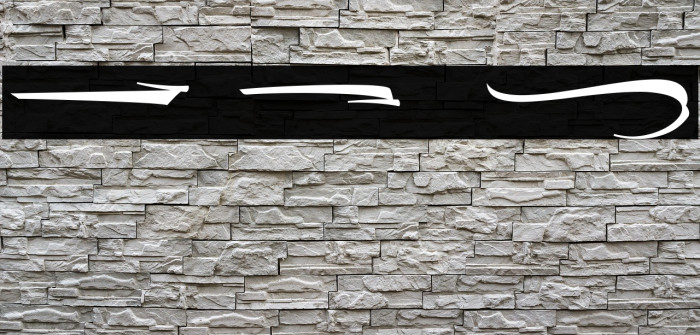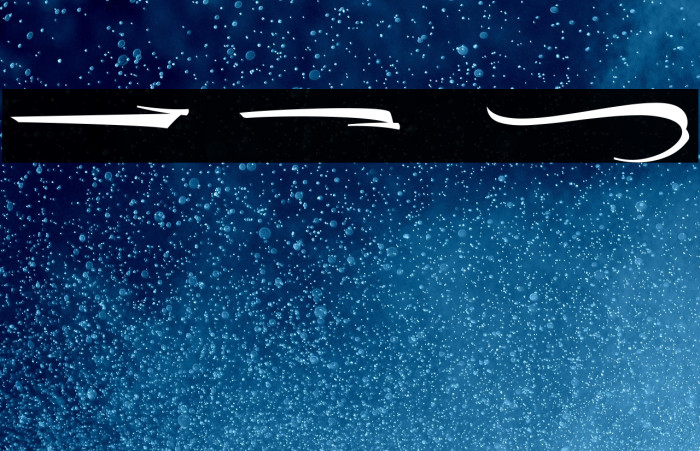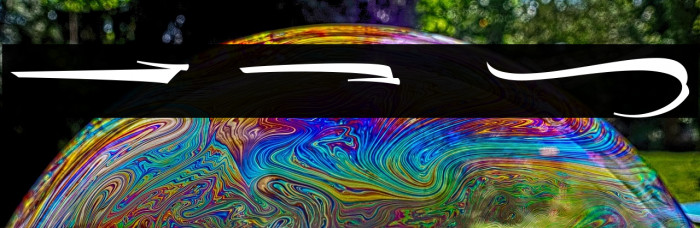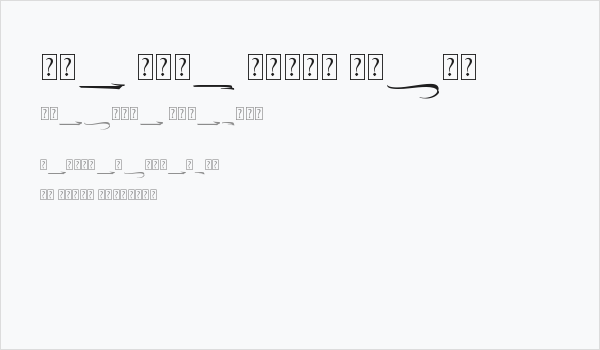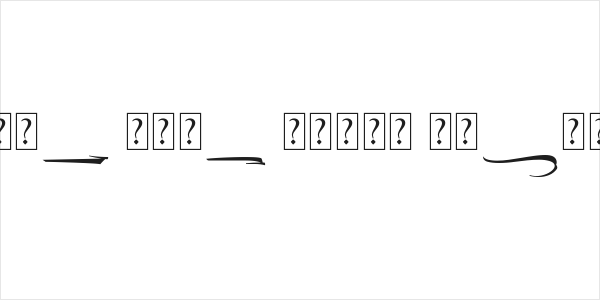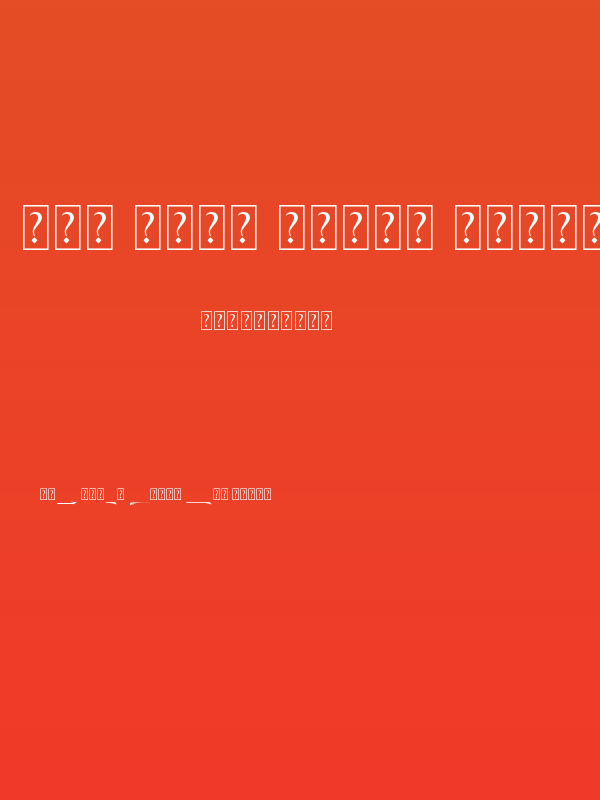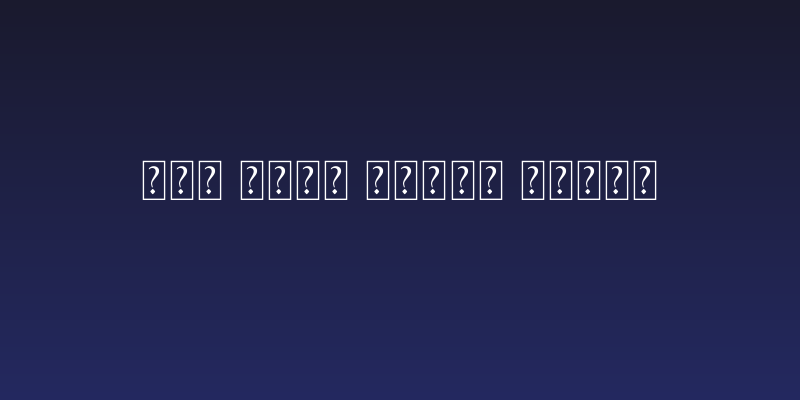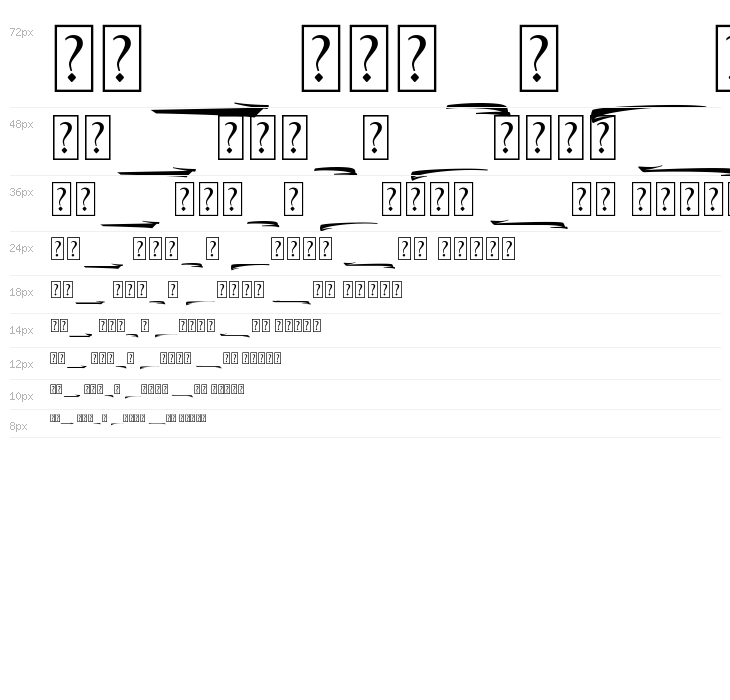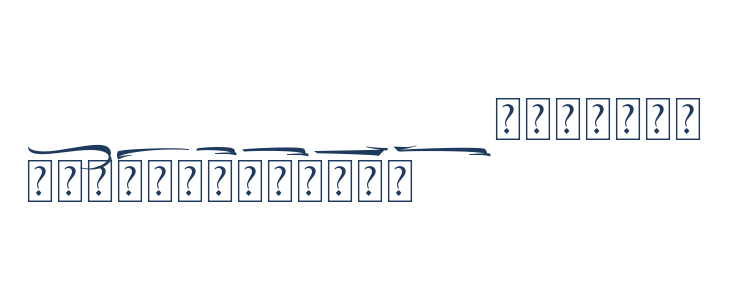
The Lord Night Swash Font
The Lord Night Swash Description
This font is characterized by its elegant and flowing swashes, which add a touch of sophistication and flair to any design. The letters are adorned with intricate curves and flourishes, making it ideal for decorative purposes. The style is reminiscent of classic calligraphy, with a modern twist that enhances its visual appeal. The font is perfect for creating eye-catching headlines, invitations, and branding materials that require a sense of elegance and style. Its unique design elements make it stand out, providing a distinctive look that is both artistic and refined.
| Use Case | Headlines, Invitations, Branding |
| Proposed Projects | Perfect for wedding invitations, luxury branding, elegant posters, and artistic headlines. |